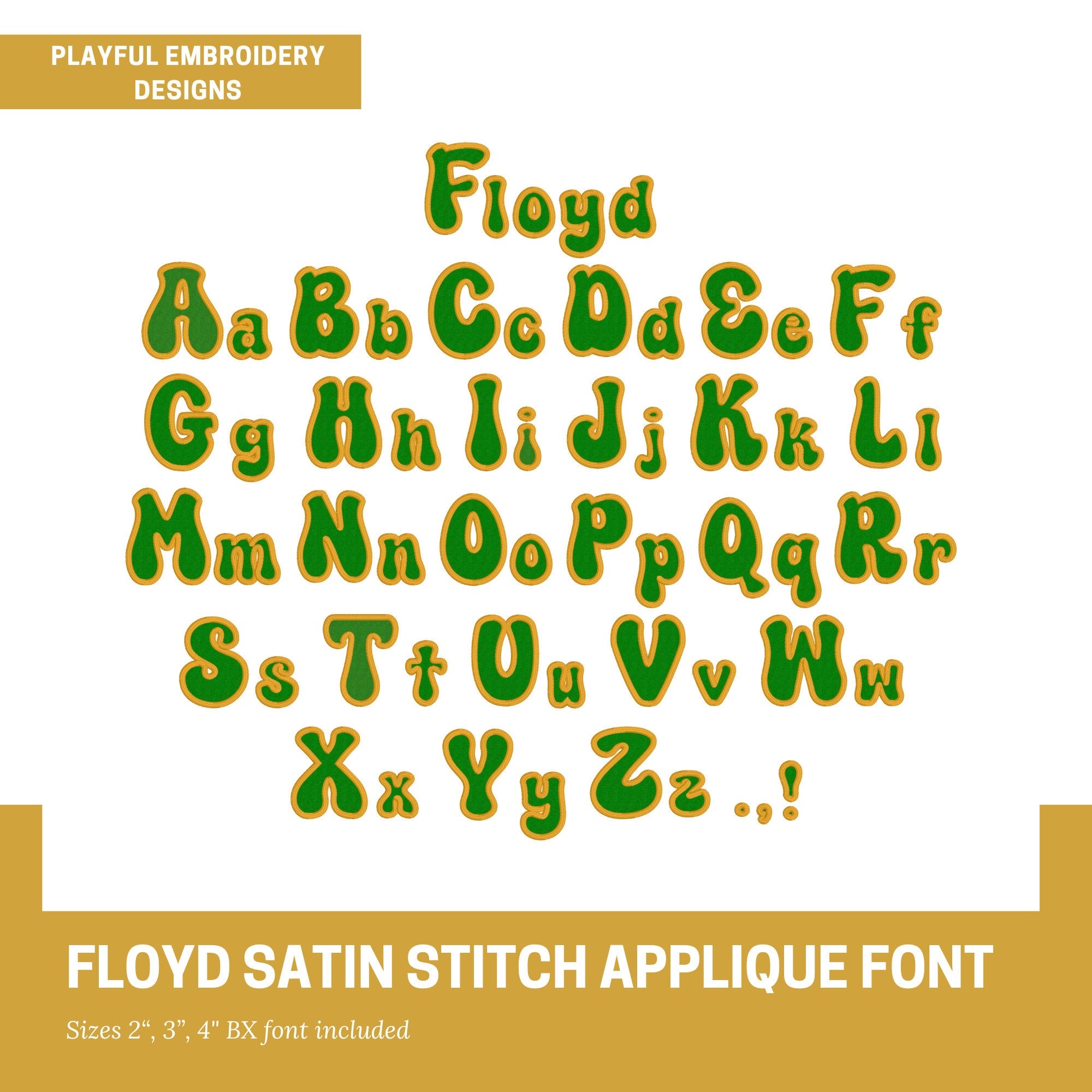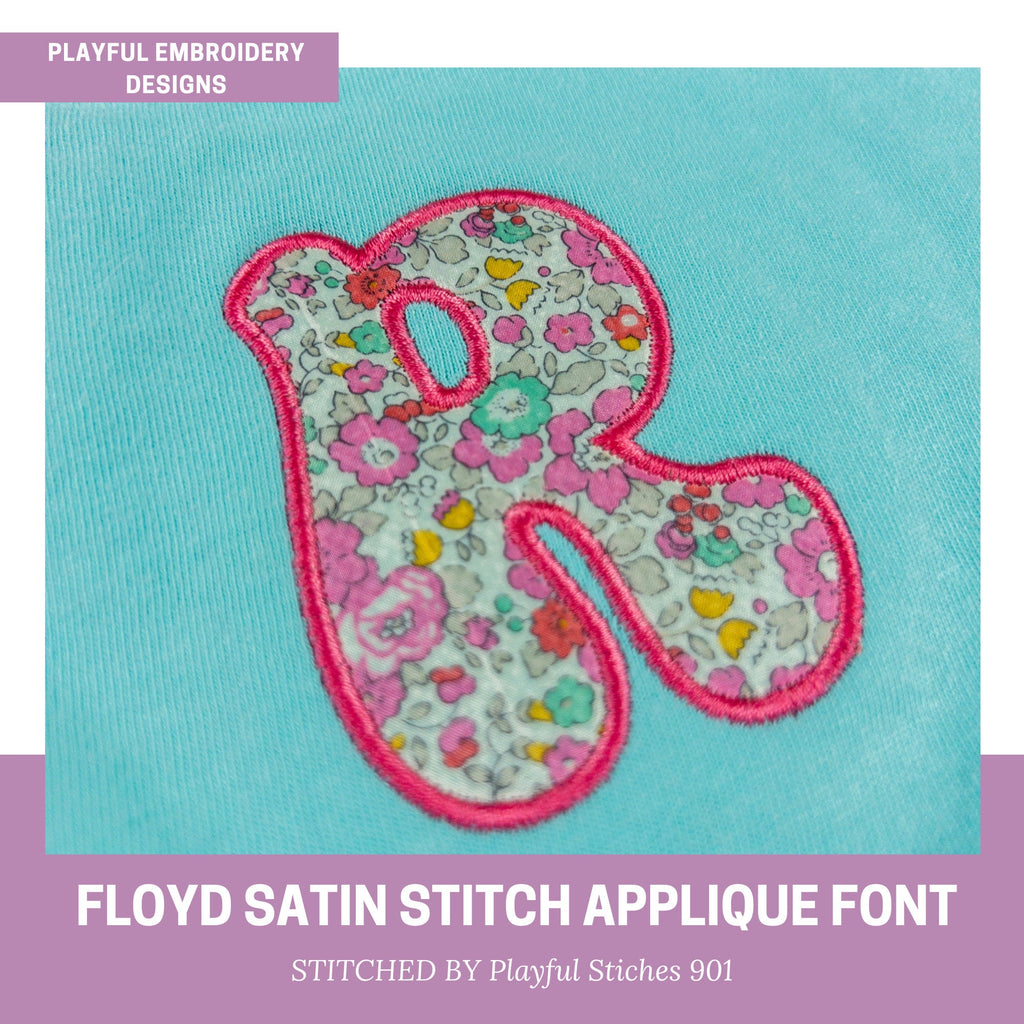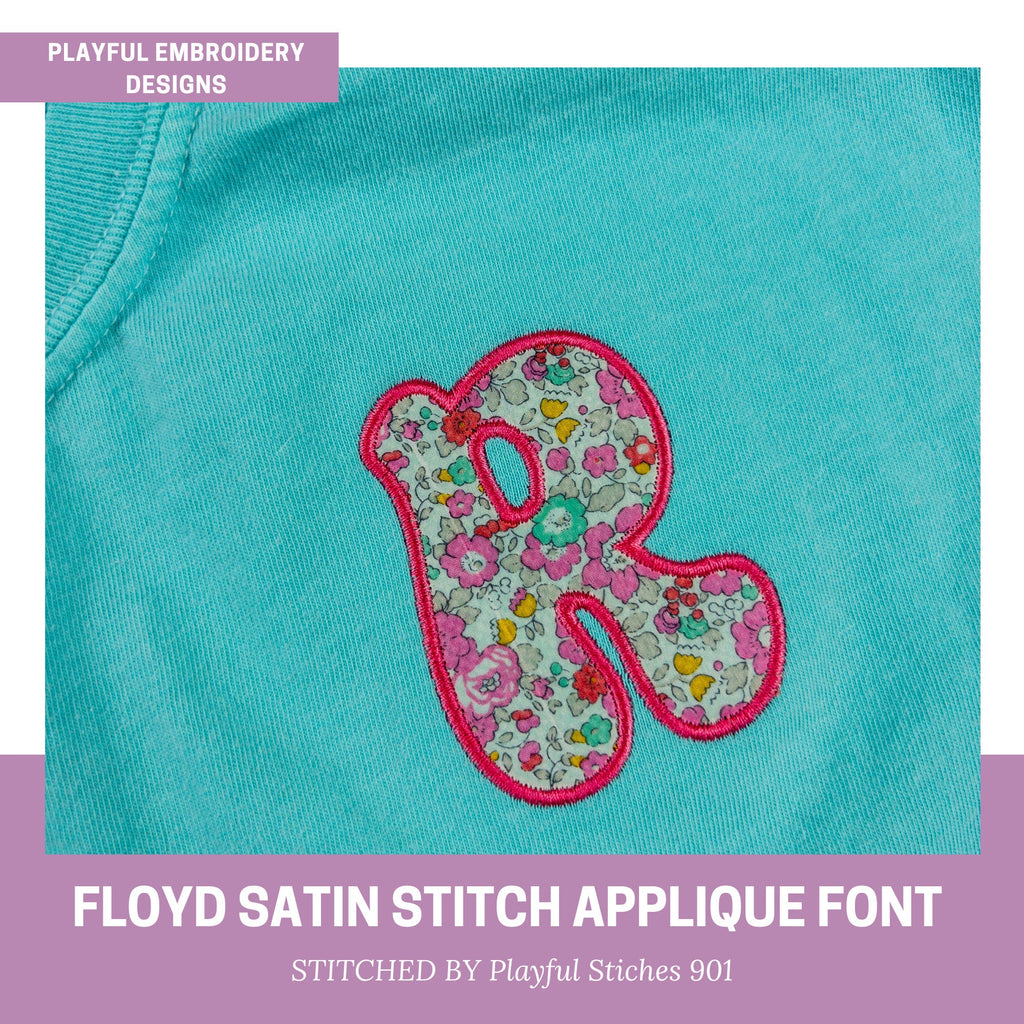
Groovy Applique Font Design, Satin Stitch Funky Applique Machine Embroidery Font, 2", 3", 4" font size, BX Monogram Font, Retro Font
Groovy Floyd applique font design for machine embroidery. This version of Floyd is satin stitch applique.